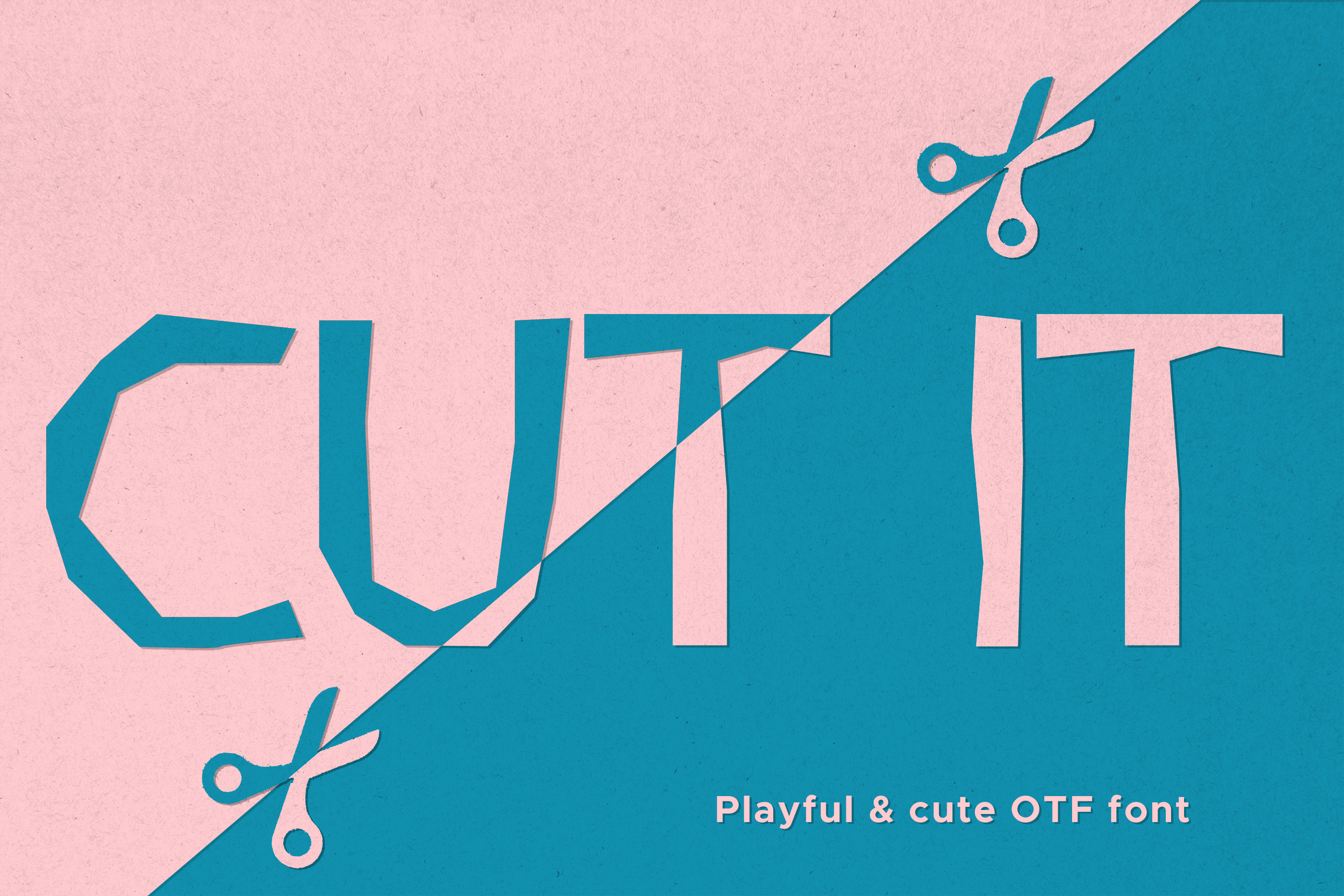
Cut It! Playful & cute cutout font
This cute cutout hand-drawn font was inspired by a pair of scissors and a bunch of paper. This font is easy to read and fun to play with. Ideal for baby shower invitations, birthday, party decor, scrapbooking, posters, web design, social media and so many more creative projects!
The font includes full set of upper and lowercase letters and numbers.